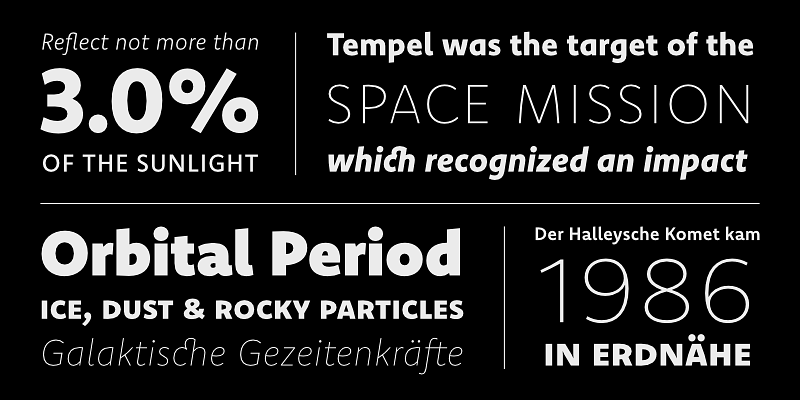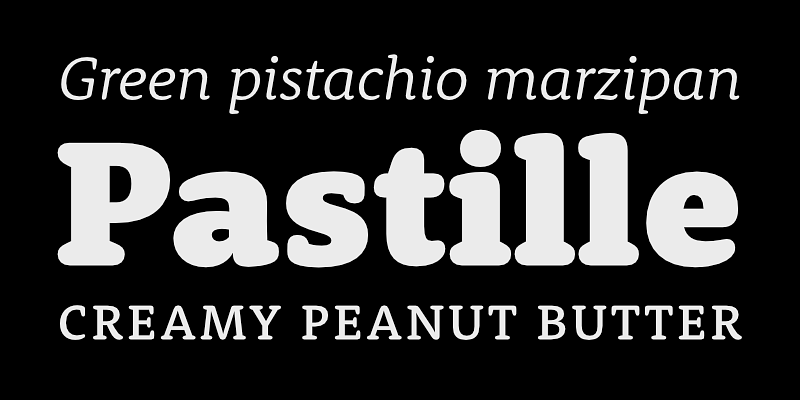
Komet derives inspiration from classical english sans-serifs. The muted, understated middle weights are built for extended body copy, while its thin and dark weights make for expressive headlines.
Rooney is based mainly on old-style serif construction principles. It combines two different approaches: It has distinctive, original letterforms, but remains very readable and versatile.